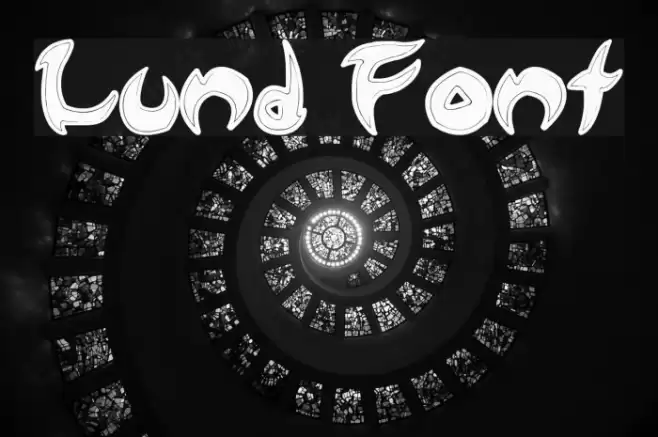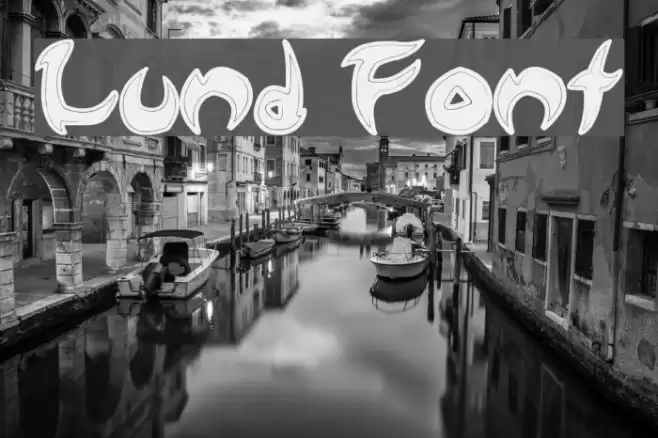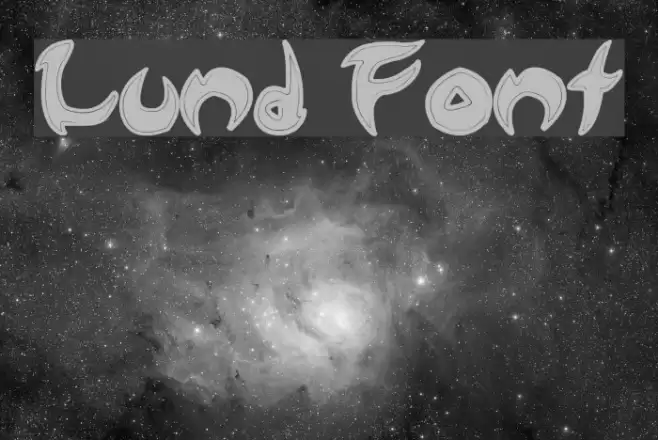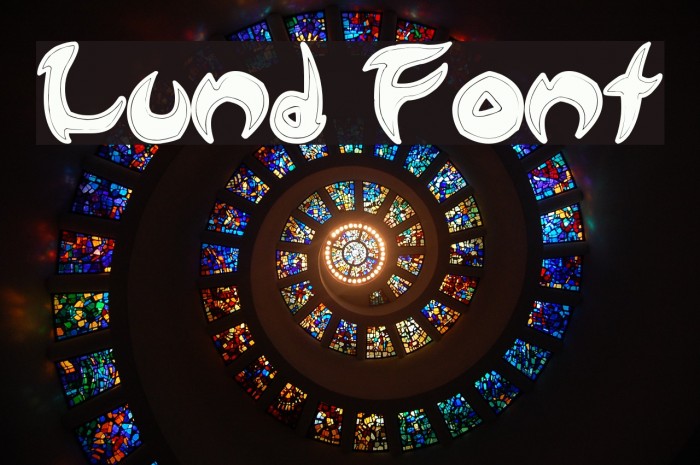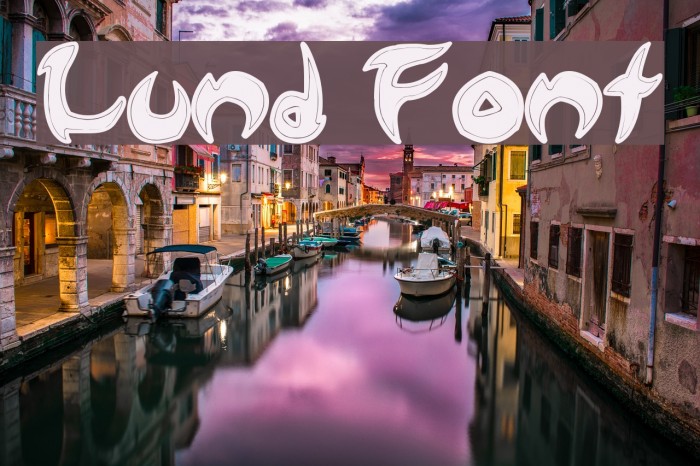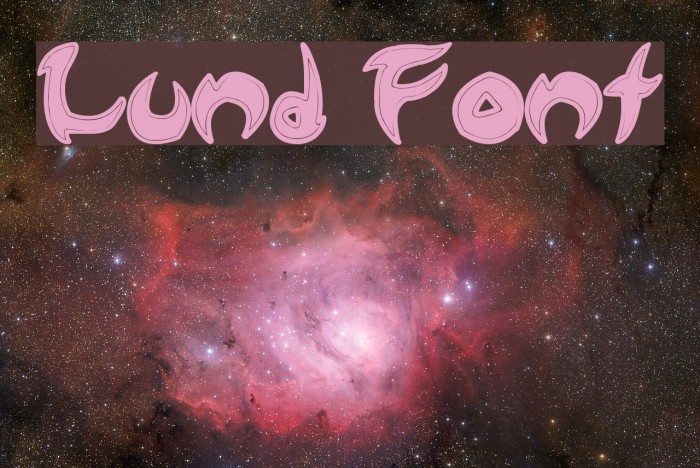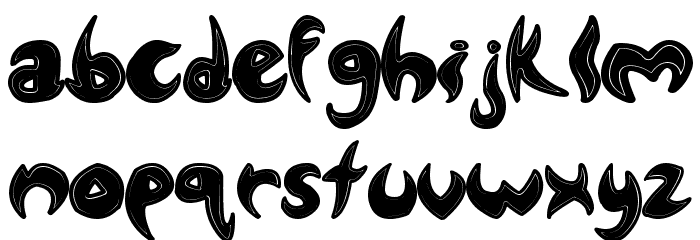
Lund Font
Lund Description
This font features a bold and dynamic style with a playful and artistic flair. The characters are designed with a unique, swirling pattern that gives them a sense of movement and energy. The uppercase letters are particularly striking, with exaggerated curves and bold strokes that make them stand out. The lowercase letters maintain the same whimsical style, ensuring consistency throughout the text. Numbers and special characters are also included, each crafted with the same attention to detail and artistic touch. This font is perfect for projects that require a creative and eye-catching design.
A bold, artistic font with swirling patterns and dynamic curves from Uncategorized fonts.